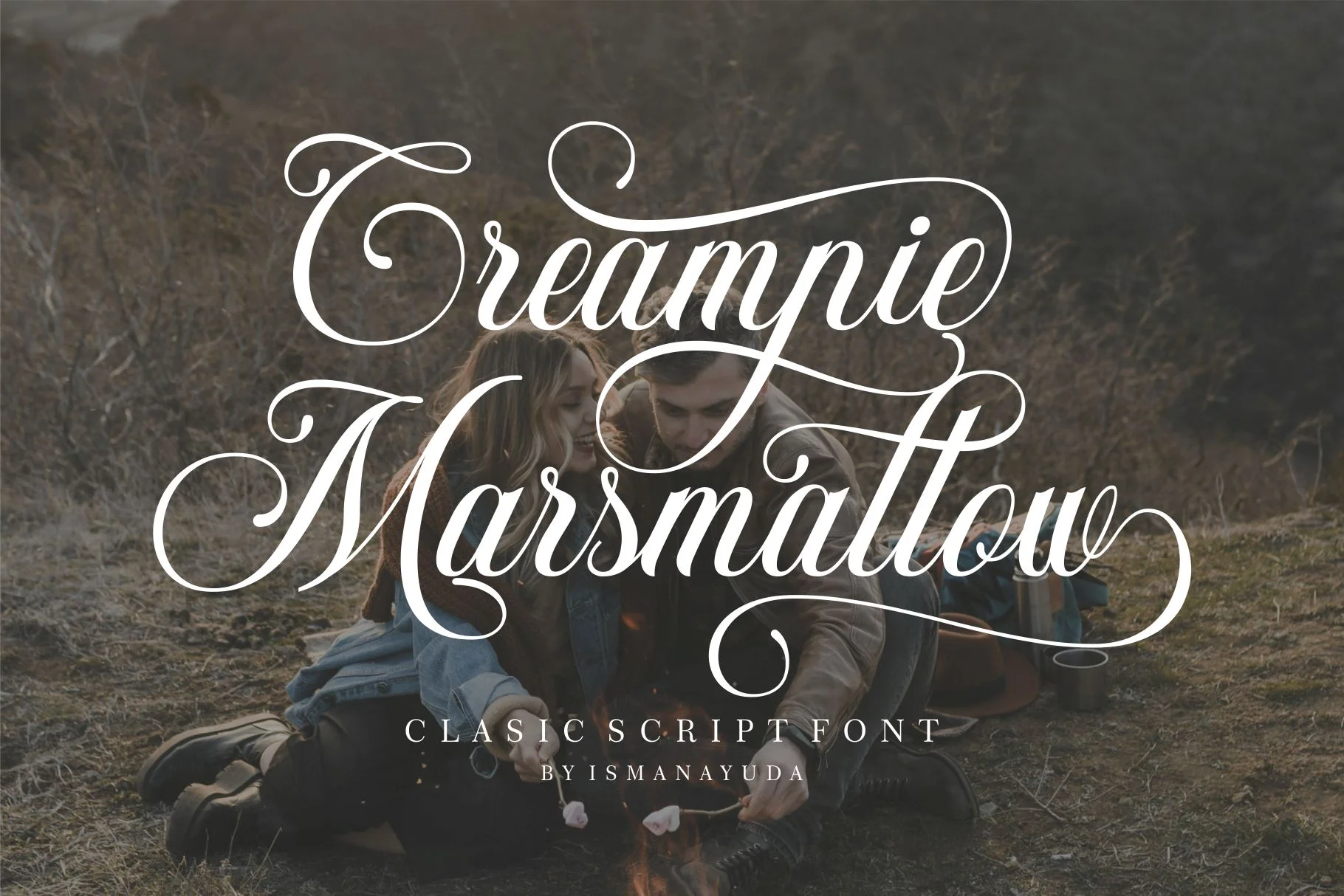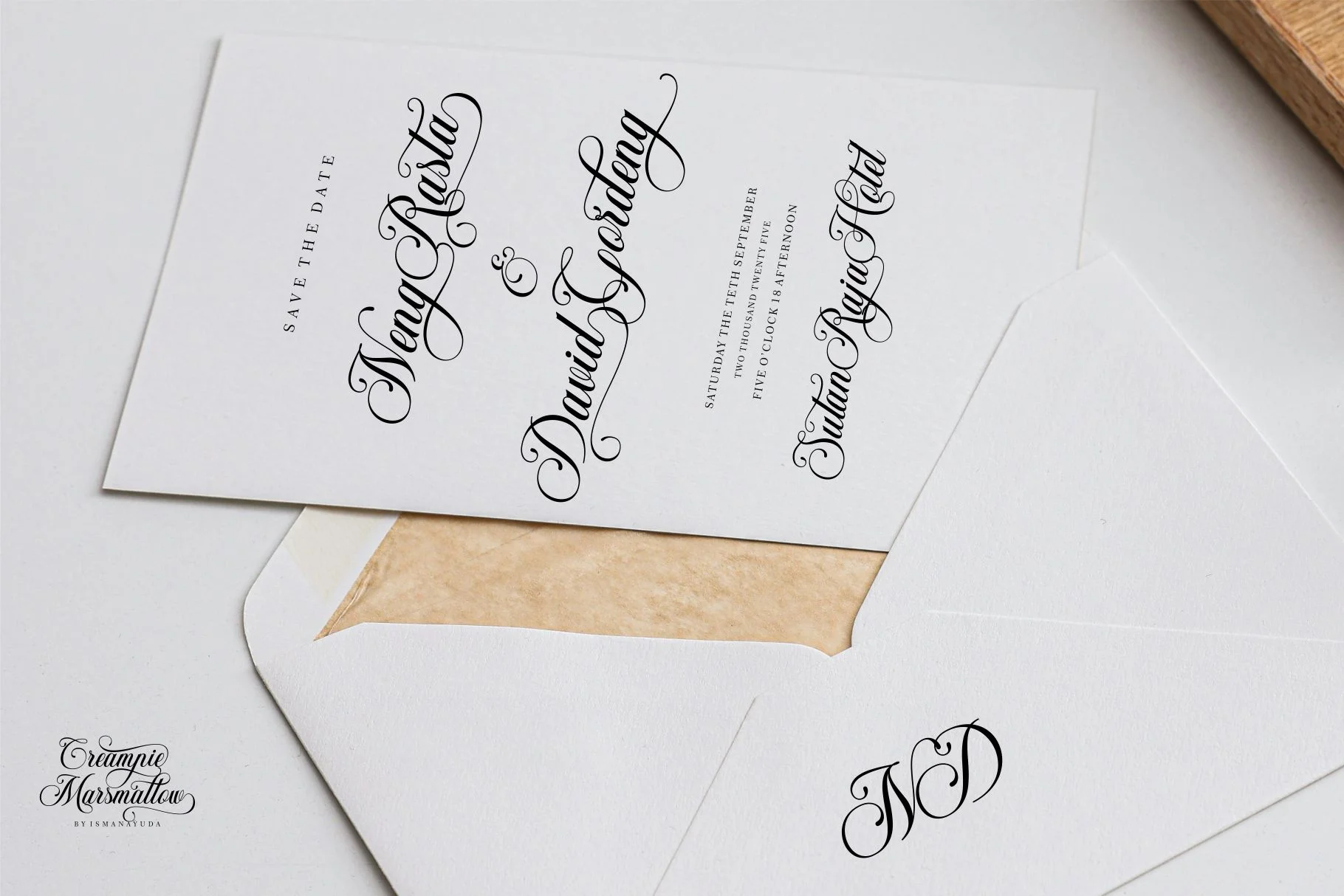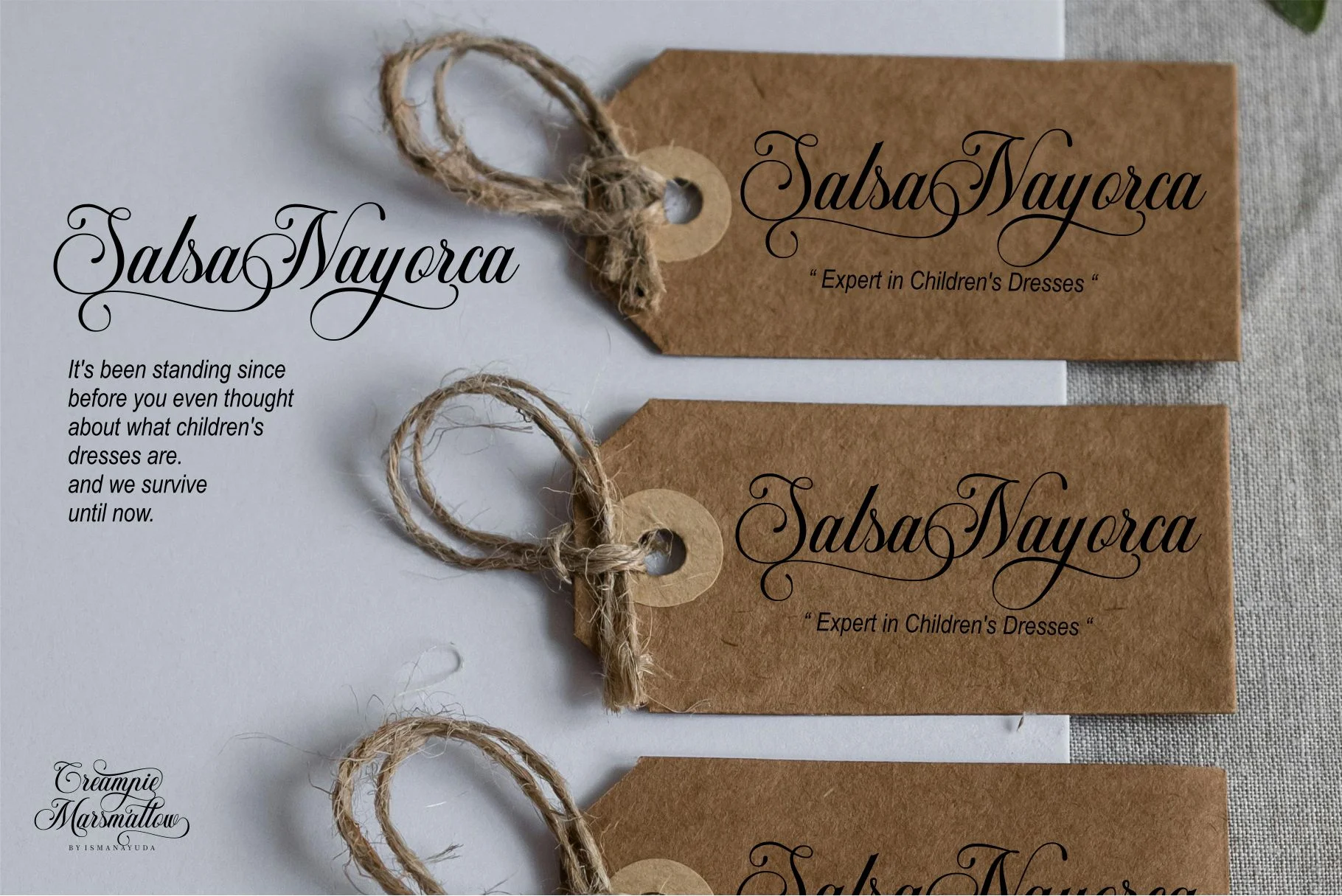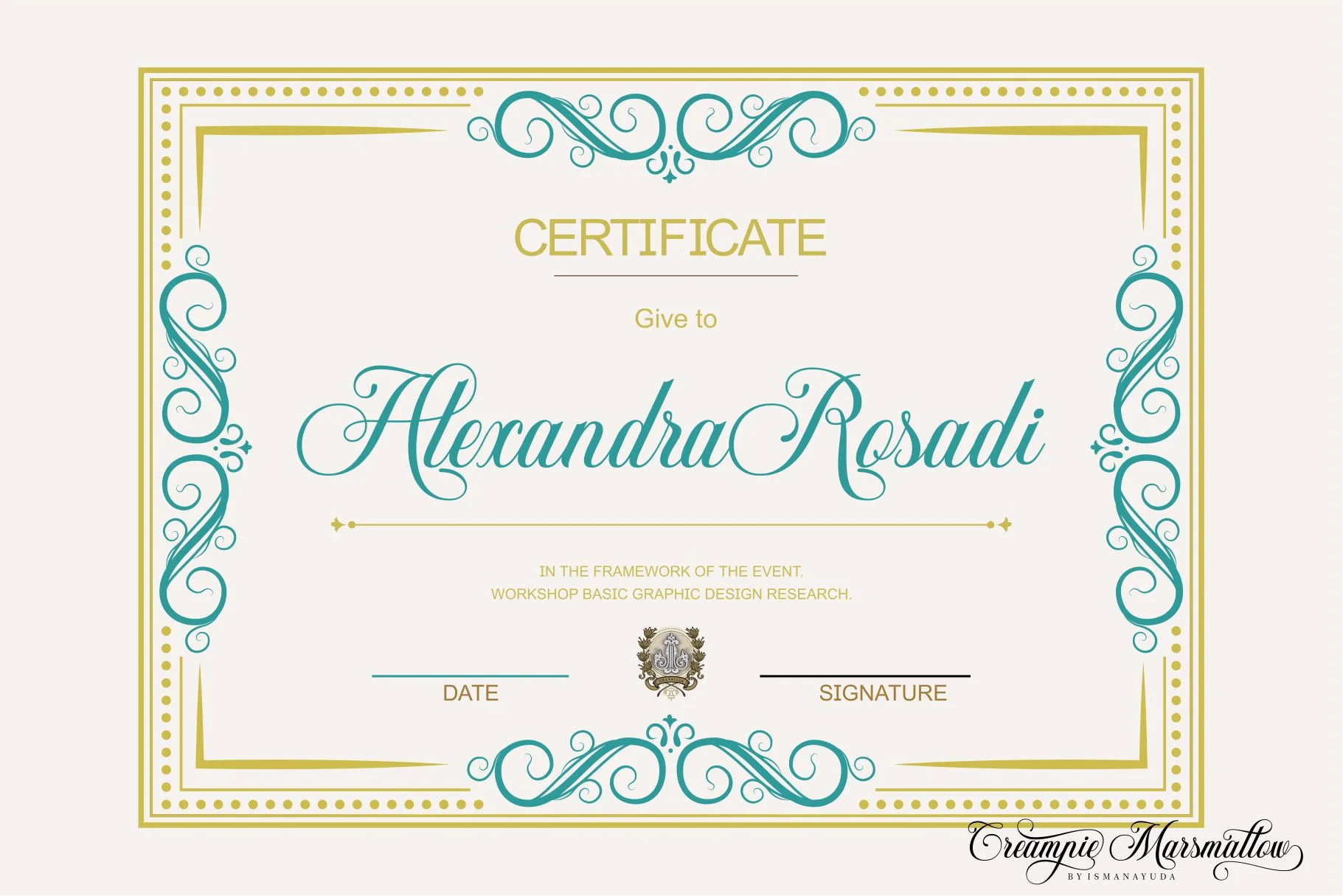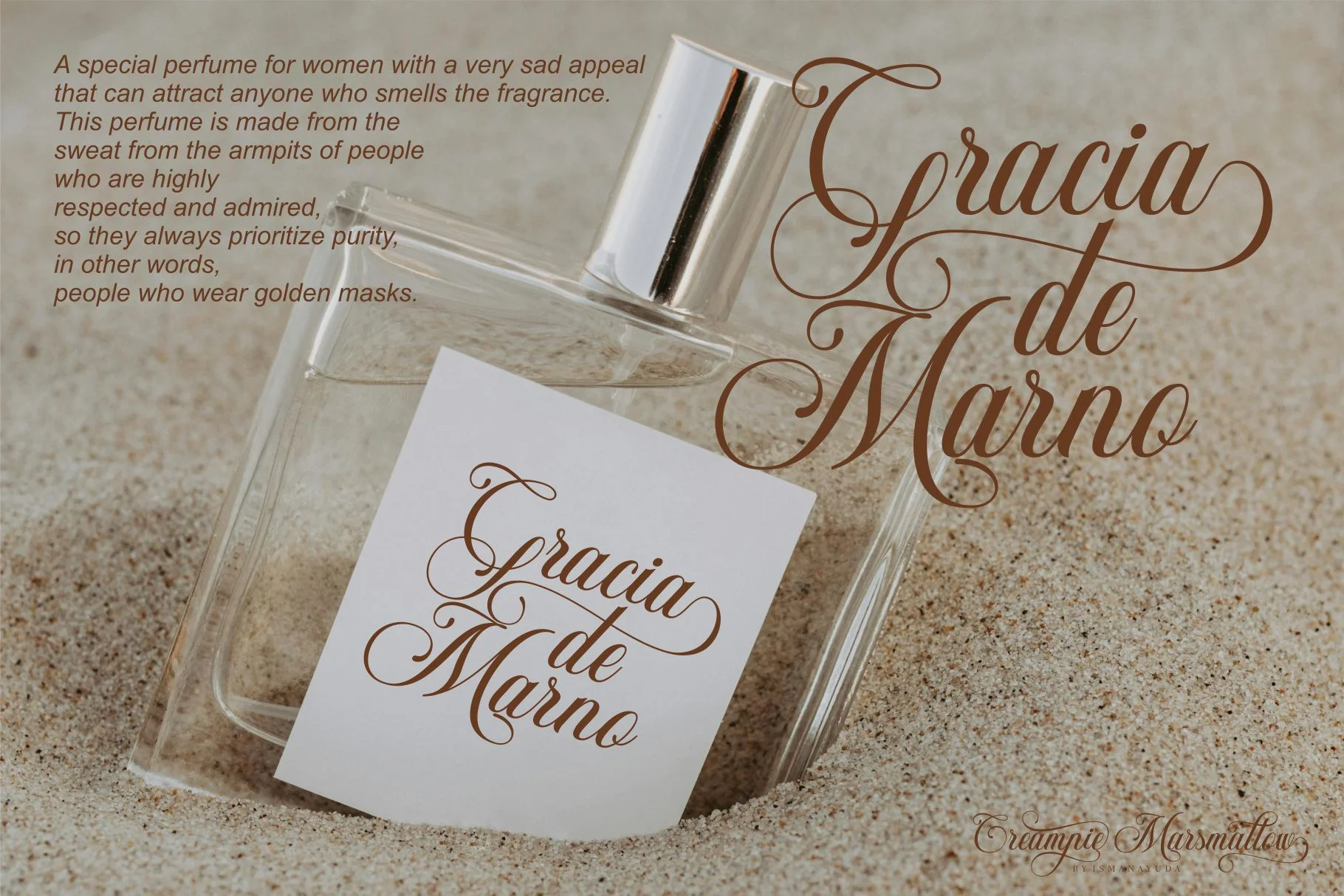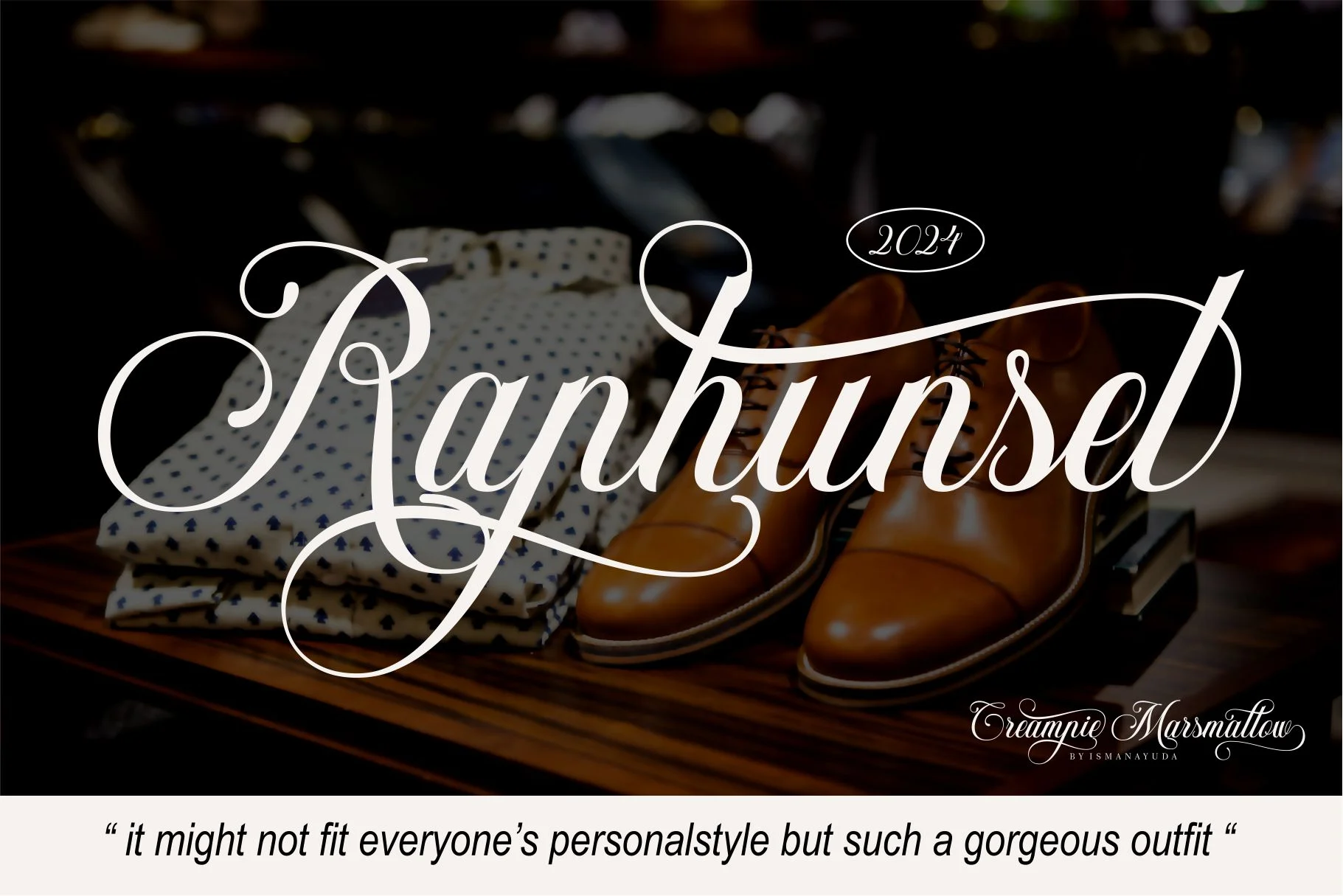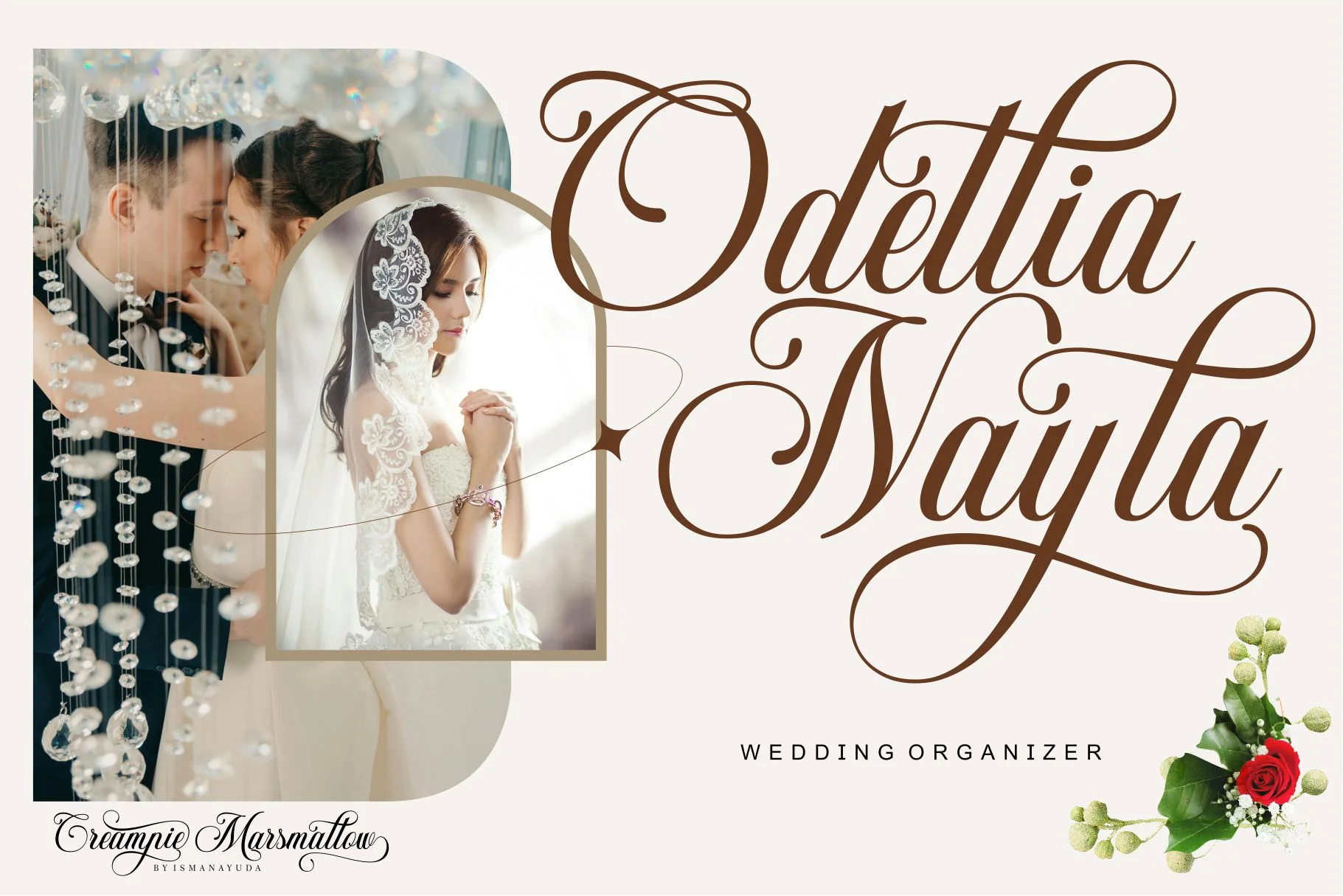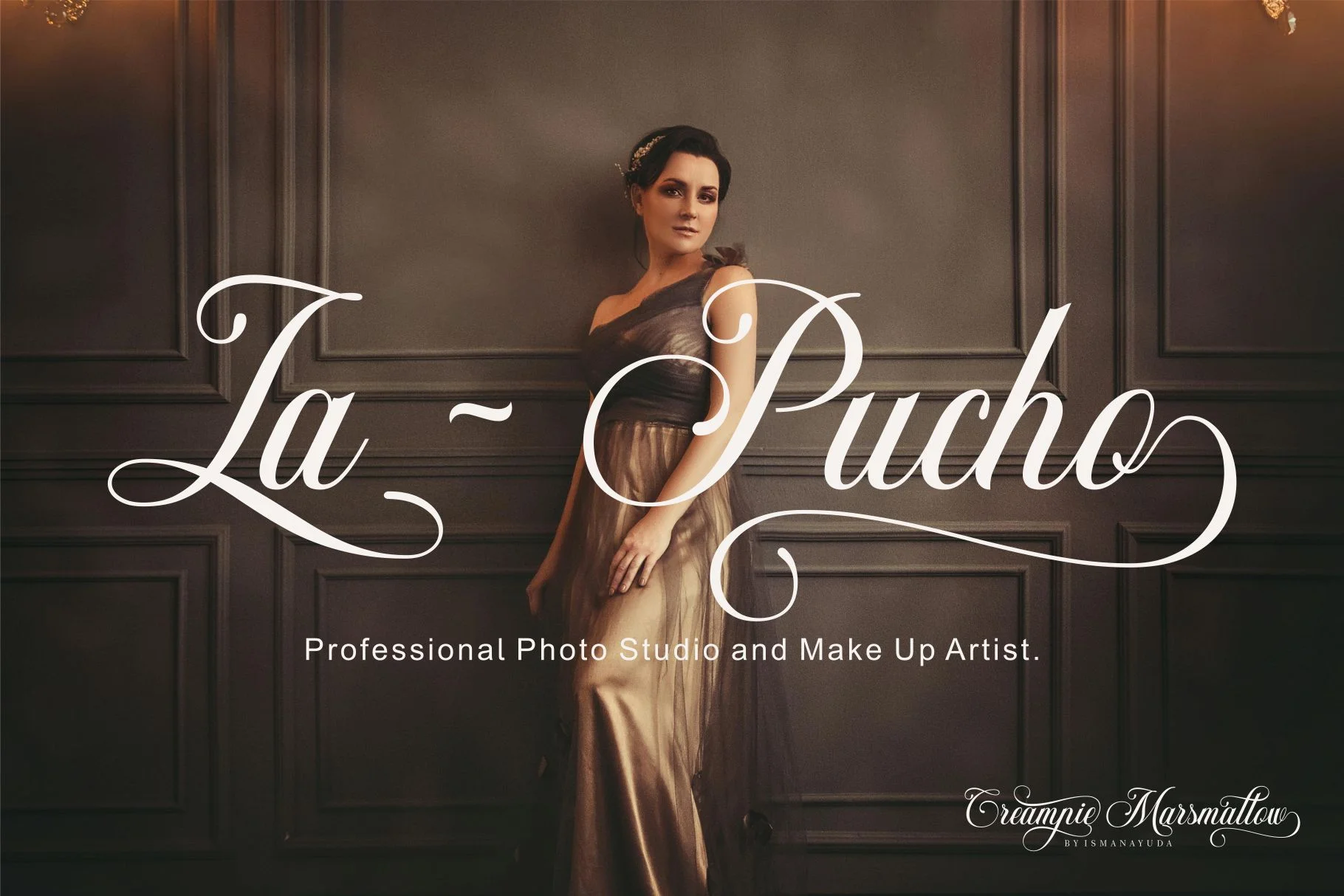
Creampie Marsmallow
Creampie Marsmallow is characterized by its elegant, continuous vertical writing style that blends traditional script foundations with a calligraphic and italic feel. The typeface features sophisticated, flowing loops and elongated swashes that give it a romantic and
Its refined yet playful aesthetic makes it exceptionally well-suited for high-end display needs, such as wedding invitations, luxury branding, beauty packaging, and artistic social media headlines. The balance of its delicate strokes and bold flourishes ensures it remains highly legible while adding a touch of personalized, hand-lettered charm to any design project